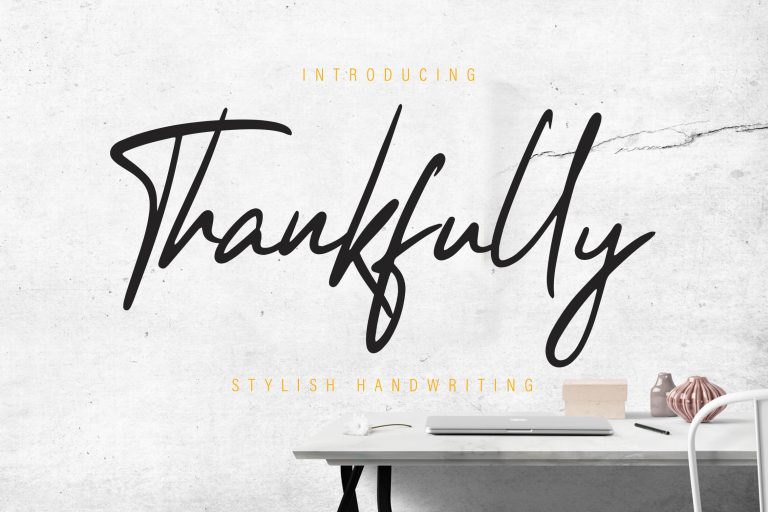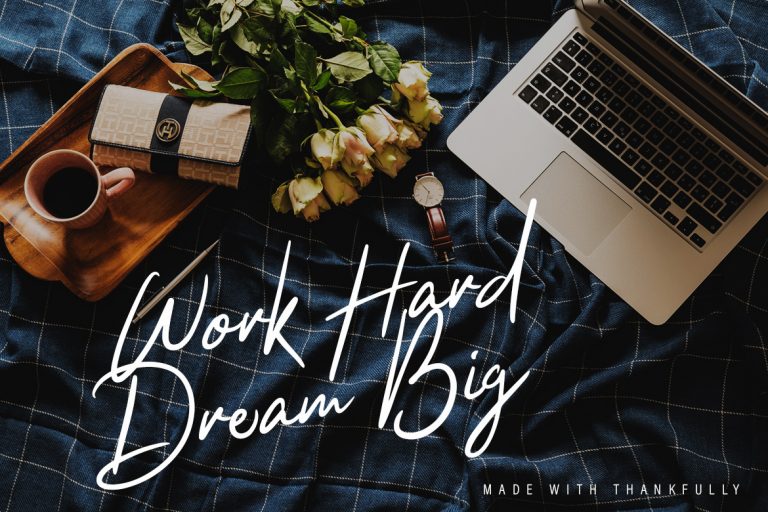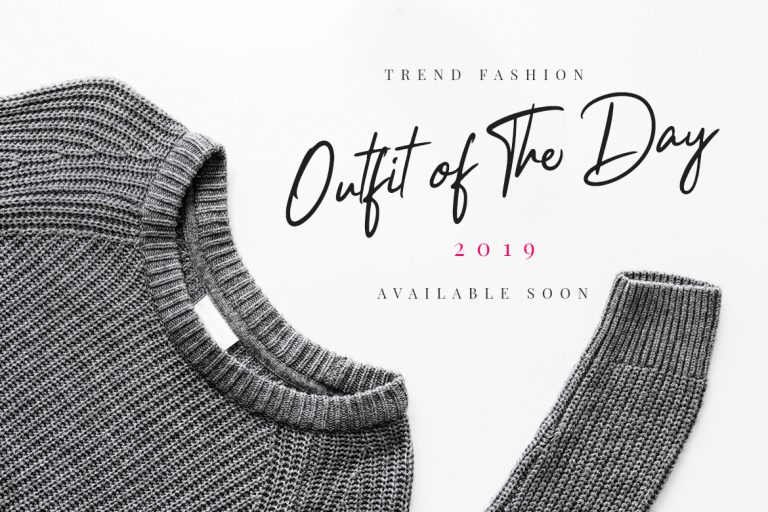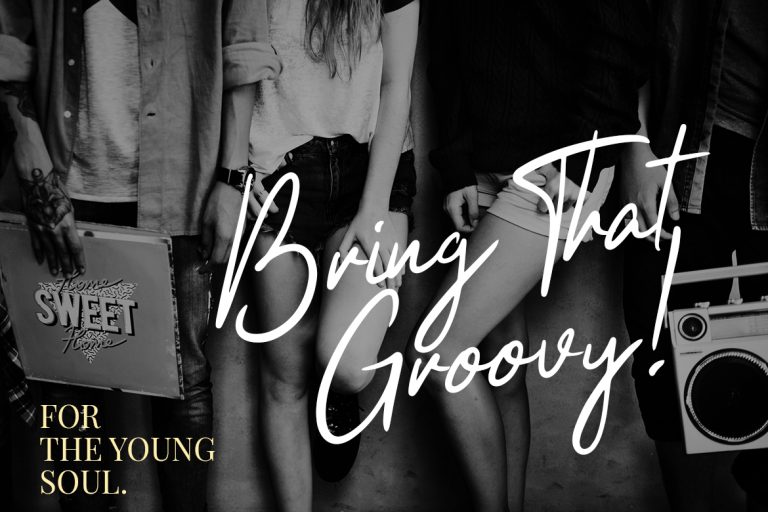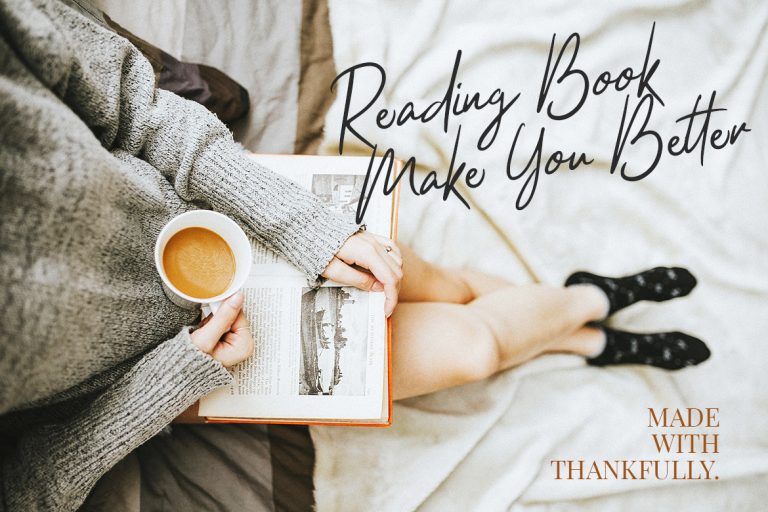
Thankfully Stylish Script
This is Thankfully made with simple and elegant hand writing, featuring a straightforward, classy and very beautiful character.
Thankfully is perfect for branding projects, logo, wedding designs, social media posts, advertisements, product packaging, product designs, label, photography, watermark, invitation, stationery and any projects that need handwriting taste.